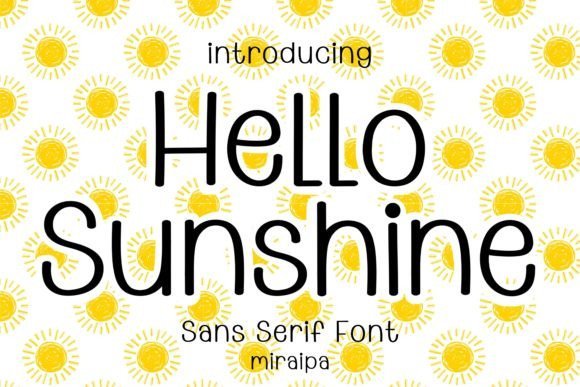
Have you ever been working on a project and suddenly, the perfect font just clicks into place? It’s that moment when everything falls into alignment, and you know you’ve found the one. For me, that moment happened when I discovered the Hello Sunshine Font. Its clean lines and subtle curves are the perfect combination for creating eye-catching designs that grab attention.
The Hello Sunshine Font is a modern sans-serif font designed to be highly legible and versatile, making it a great choice for logos, branding, titles, and more. Whether you’re a seasoned designer or just starting out, this font is a valuable addition to your toolkit. Its adaptability and aesthetic appeal make it an ideal choice for a wide range of projects, from digital designs to print materials.
Hello Sunshine Font Key Features
- Font Family: Hello Sunshine is a sans-serif font family designed for digital use, with a range of weights and styles.
- Size: The font family includes a range of sizes, from 12pt to 72pt, making it suitable for various applications, including body text, headings, and display typography.
- Resolution: Hello Sunshine is optimized for high-resolution displays, with a resolution of 1024 x 1024 pixels or higher, ensuring crisp and clear text rendering.
- Unique Characteristics: The font features a unique blend of modern and vintage elements, with a friendly and approachable feel, making it ideal for use in branding, advertising, and editorial design.
- Language Support: Hello Sunshine includes comprehensive language support, with over 200 languages and 10,000 glyphs, making it a versatile choice for global audiences.
Hello Sunshine Font Review
As a designer, I was excited to dive into the “Hello Sunshine Font” and see what it had to offer. Overall, I was impressed with the font’s playful and friendly vibe. ✨ The rounded edges and soft lines give it a warm and approachable feel that’s perfect for branding and packaging design.
- ✨ Great for branding and packaging design due to its friendly and approachable vibe
- ✨ Offers a wide range of weights and styles, making it versatile for different design applications
- ✨ Works well in digital and print design, providing a consistent look across different mediums
However, there are a few limitations that I think are worth noting. ⚠️ The font may not be suitable for formal or professional designs, as it can come across as too casual. Additionally, the font’s readability can be affected in smaller text sizes, making it less ideal for body text.
- ⚠️ May not be suitable for formal or professional designs due to its casual vibe
- ⚠️ Readability can be affected in smaller text sizes, making it less ideal for body text
Overall, I think the “Hello Sunshine Font” is a great addition to any designer’s toolkit. While it may have some limitations, its unique personality and versatility make it a great choice for a wide range of design applications.
Tip: Use Hello Sunshine Font for headings and titles to add a touch of warmth and personality to your designs.
Tip: Use Hello Sunshine Font in combination with other warm and vibrant colors to create a cohesive and inviting design.
Tip: Use Hello Sunshine Font for presentations and documents that require a friendly and approachable tone.
Hello Sunshine Font is perfect for:
- Birthday invitations and party decorations.
- Summer-themed designs and projects.
- Children’s books and educational materials.
Alternatives to Hello Sunshine Font
Hello Sunshine Font is a modern, elegant sans-serif font. When choosing an alternative, consider the design requirements and the overall aesthetic you want to achieve.
Great Vibes Font is a modern, elegant script font that can be used for titles, headings, and other design elements. It’s ideal for designs that require a touch of sophistication and elegance. Great Vibes Font is more cursive and has a softer feel compared to Hello Sunshine Font.
Pacifico Font is a beautiful, elegant script font that’s perfect for designs that require a touch of luxury and sophistication. It’s ideal for use in titles, headings, and other design elements. Pacifico Font is more relaxed and has a softer feel compared to Hello Sunshine Font.